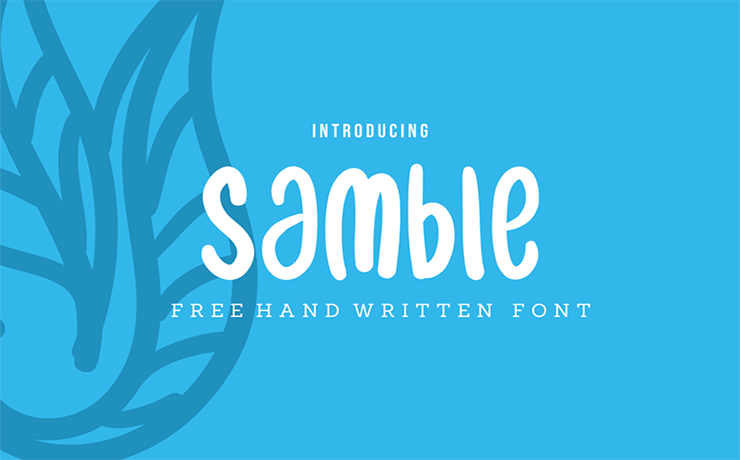
The free Samble handwriting font is a well-designed typeface from designer nomlimofont. It has a unique, simple form that gives a gentle friendly impression if you want to add a handwritten touch.
It is perfect for quotes, invitation cards, comics, postcards, label products, logos, flyers, brochures, websites, apps, and many more.
Its perfect appearance and bold weight make it a great possibility to come up with fast beautiful, wide, and subtitled fonts.
It is available in the market in a very rare and unique way which is the best way to create a unique design. If you have experience in this field then you must know this.
Every word has been carefully crafted just to keep it clean. How it will add a remarkable touch to the amazing font designs.
It’s a really memorable choice for things like titles, logos, watermarks on photos, comic covers, printing cards, book covers, comic books, unique emblems, banner ads, fun magazines headlines, advertisements, social media posters, and so on.
This cartoon font pack, comes in only a single cute style including Regular. So, you can definitely get a good design with its help. If you want to put it anywhere.